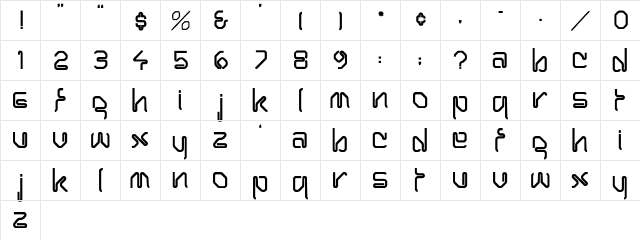
Clevis-Normal Regular
Design Context for Clevis-Normal Typeface
Clevis-Normal is a composed and adaptable typeface that performs quietly and consistently across a wide range of design contexts.
Pro Tip: Use Clevis-Normal in both headline and body roles to test its range before committing to a single application.